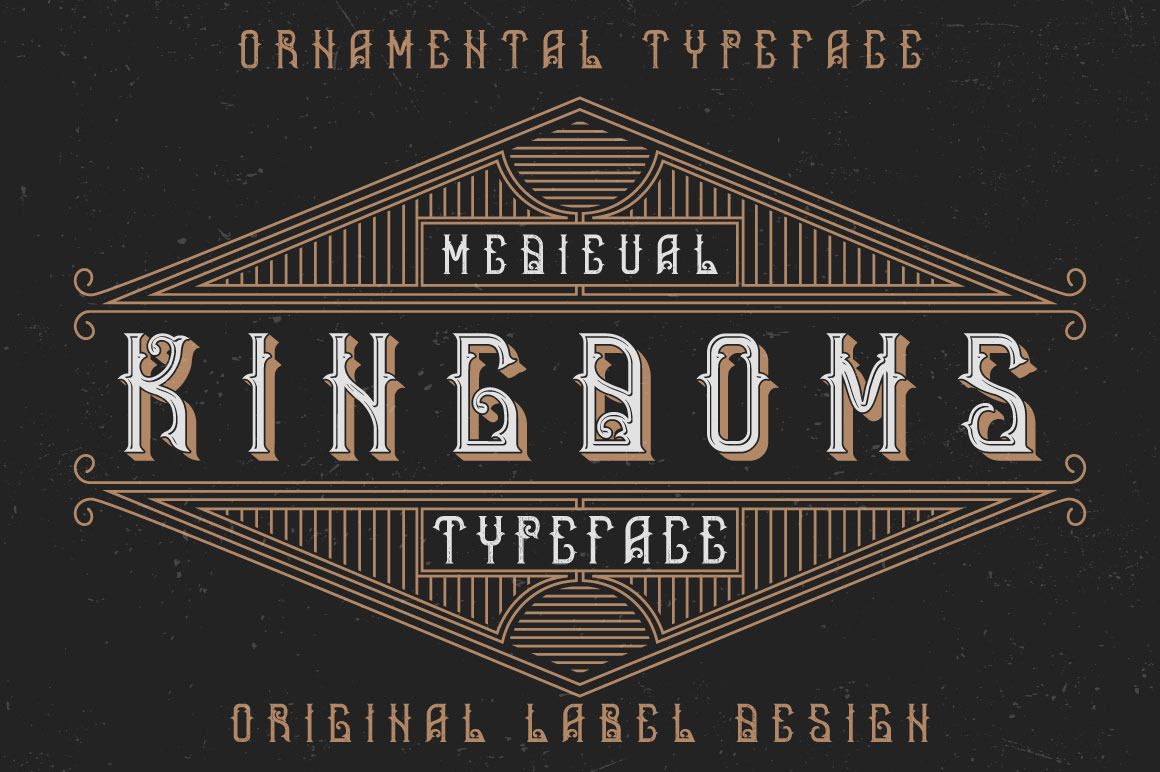
Medieval Kingdoms Label font
Introducing a vintage label typeface named "Medieval Kingdoms". It's made in strong and vintage label style. Typeface looks great on any label designs and t-shirts.
- 5 fonts in complect with special effects + aged version
- You can mix color of base font, texture and shadow effect (look at 5th screenshot)